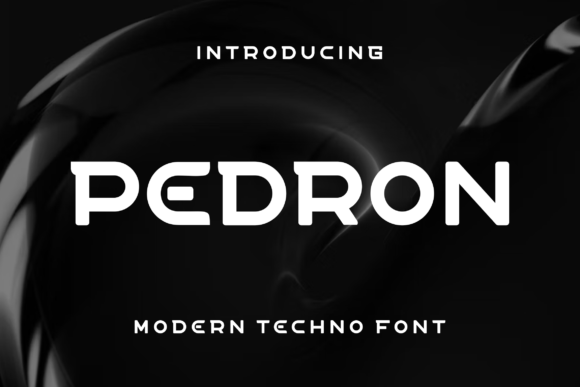
Introducing Pedron Font, the modern bold and authentic display font that will captivate your audience and elevate your branding projects. Crafted by agusbolang1616, this extraordinary font is perfect for logos, t-shirt designs, creative products, and more.
With its distinct aesthetic, Pedron Font strikes a balance between boldness and authenticity, leaving a lasting impression on your audience. Unleash your creativity and envision your designs adorned with this captivating font, capturing attention with its undeniable allure.
Step into a world where typography meets art, where your designs transcend the ordinary. Pedron Font isn't just a collection of letters; it's a gateway to a realm of boundless possibilities. Let your imagination soar as you explore the myriad ways to showcase this remarkable font.
Whether you're creating a logo that exudes strength and confidence or designing a t-shirt that speaks to your individuality, Pedron Font is the perfect partner. Its versatility knows no bounds, adapting seamlessly to any project you envision.
So embark on a creative journey with Pedron Font, where your designs become masterpieces and your imagination takes center stage. Experience typography like never before and discover the power of a font that resonates with your audience. Embrace the extraordinary and let Pedron Font elevate your branding projects to new heights.